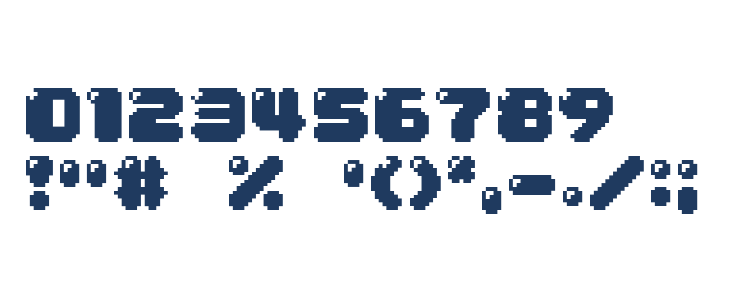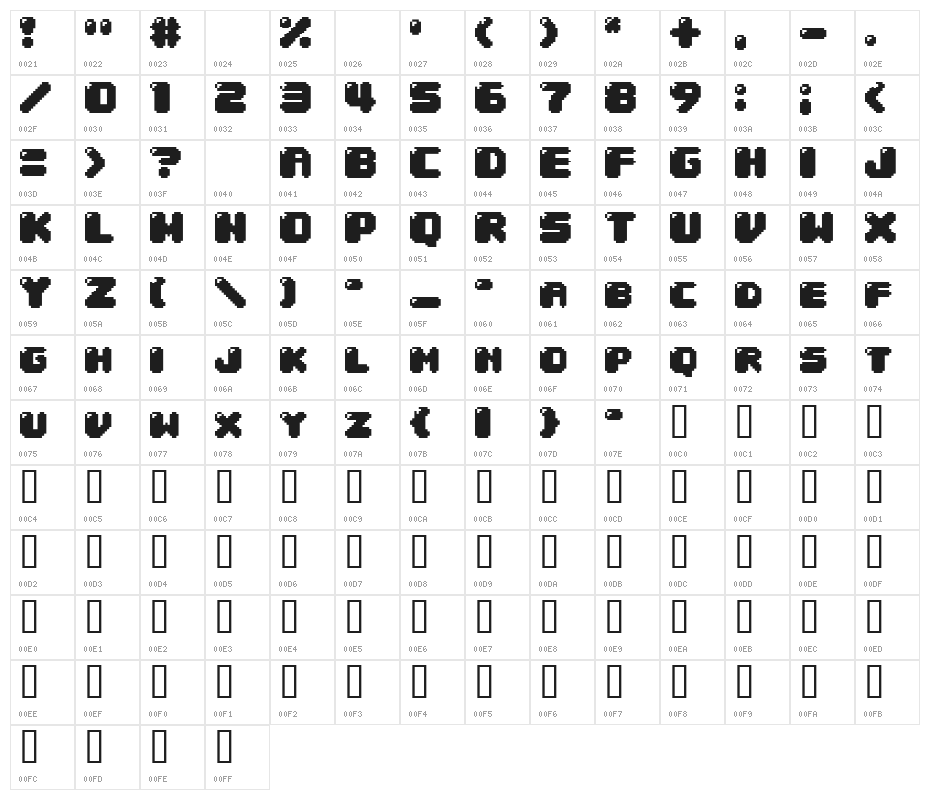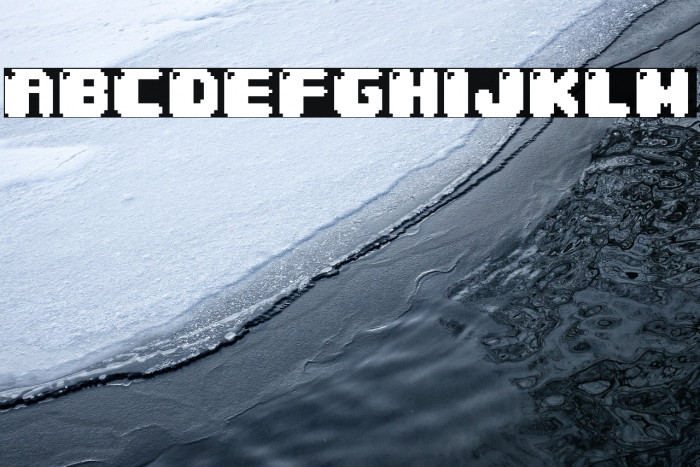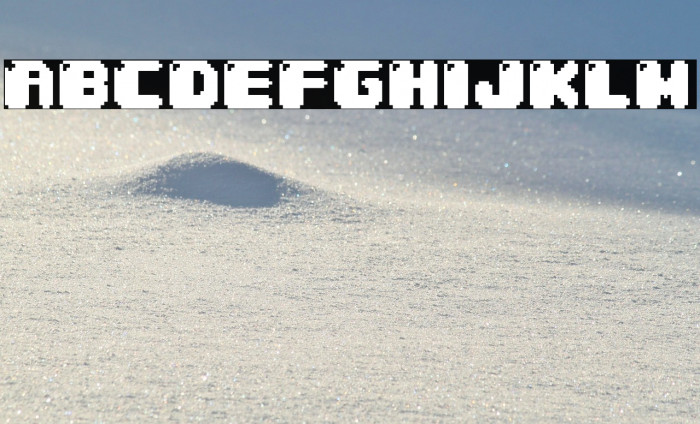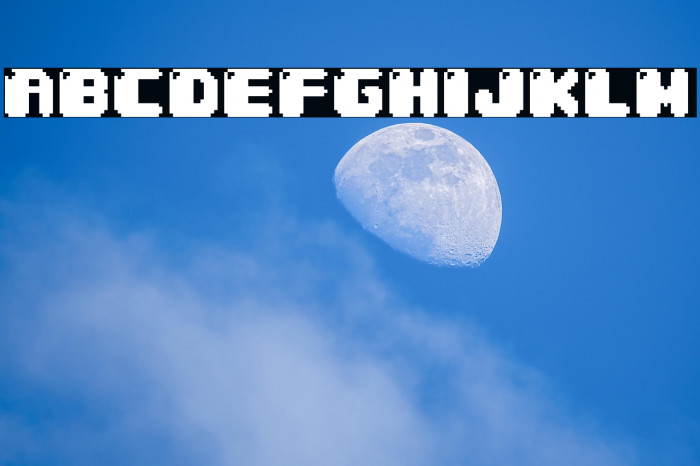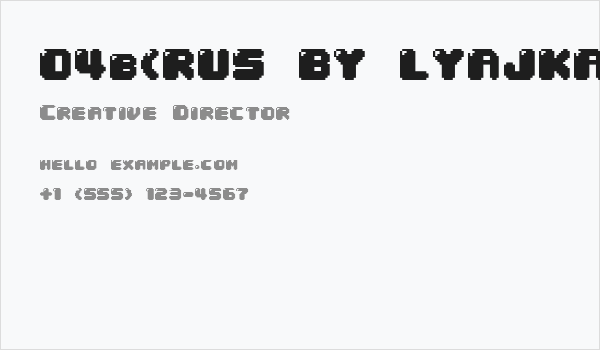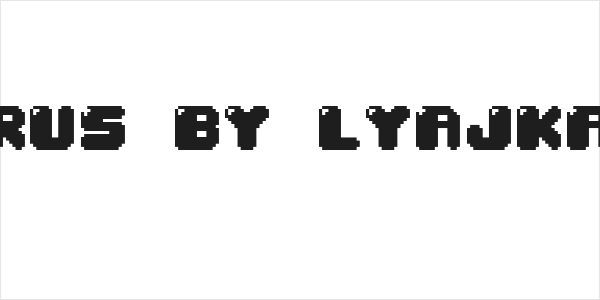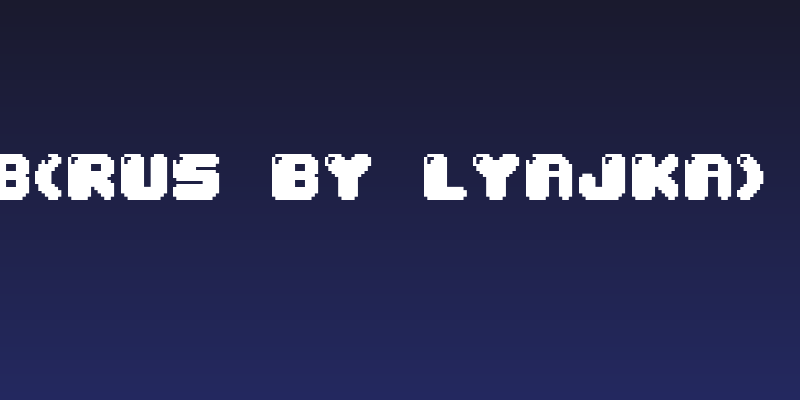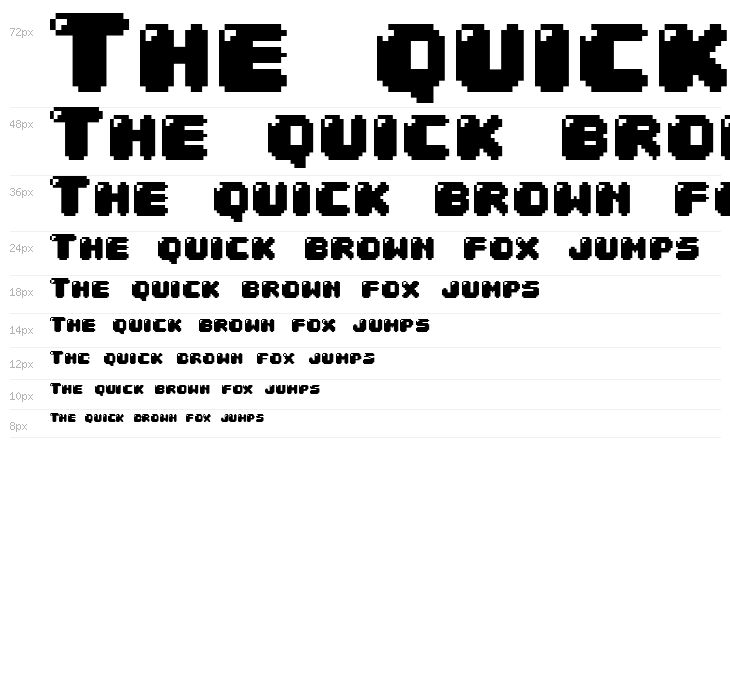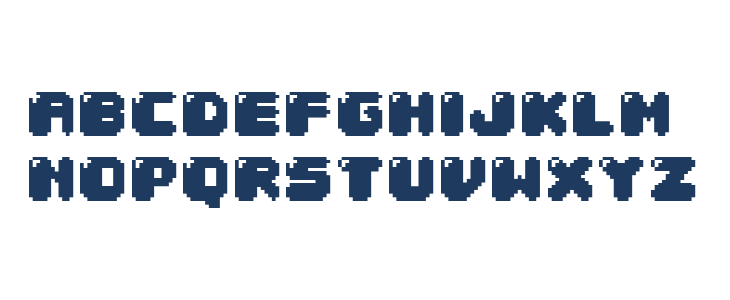
04b(RUS BY LYAJKA) 30 Font
| Progetti proposti | Ideal for video game design, retro-themed posters, digital art, and any project seeking a nostalgic digital aesthetic. |